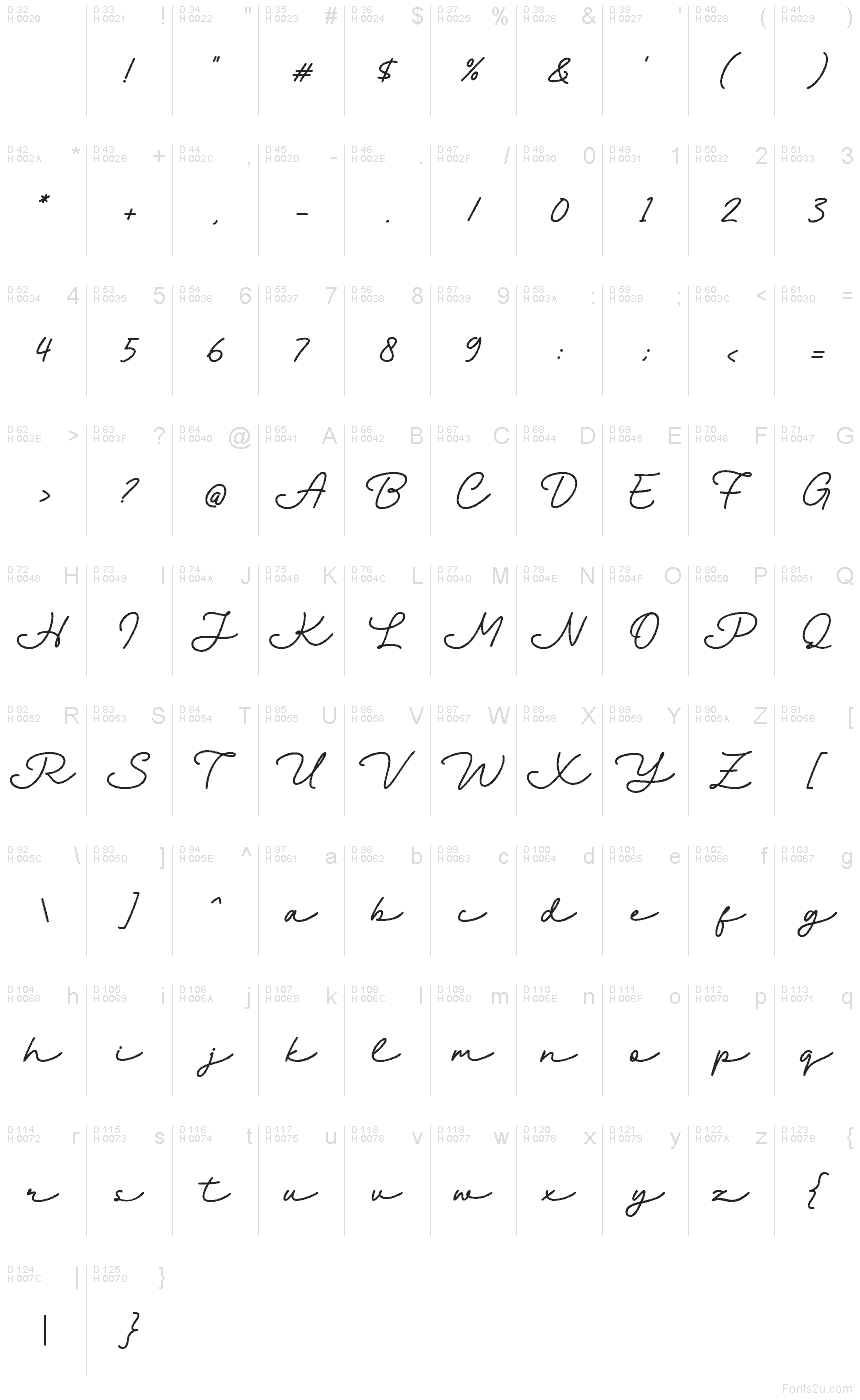
Unline Regular
Unline font by Afkari Studio is an elegant and fluid free handwritten font featuring a cohesive script style. With its light weight, expressive characters, and modern look, this font can bring instant and easy sophistication to your design projects. Unline communicates the message with an approachable tone making it easy for viewers to feel connected.
Use Unline in packaging designs (labels and stickers), in your branding projects (especially logos), or try it on apparel and accessories. Other ideas include wall art typography or invitations for special events such as weddings, birthdays, baby showers, or anniversaries. Finally, use it in magazines advertisements or across various platforms on social media!